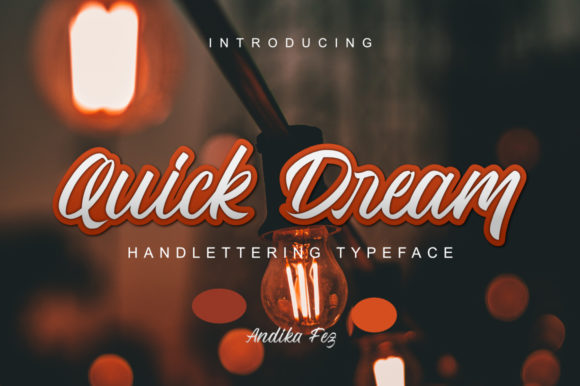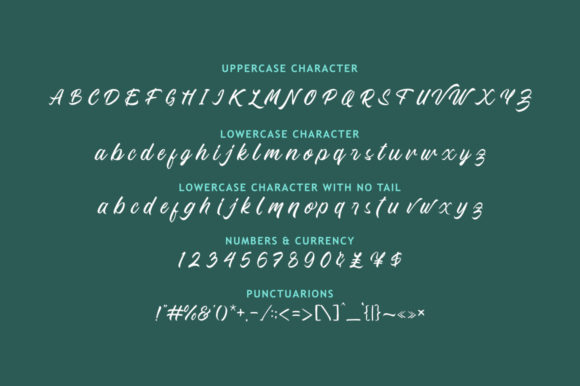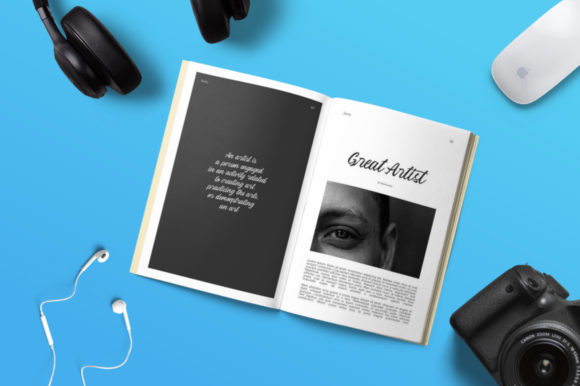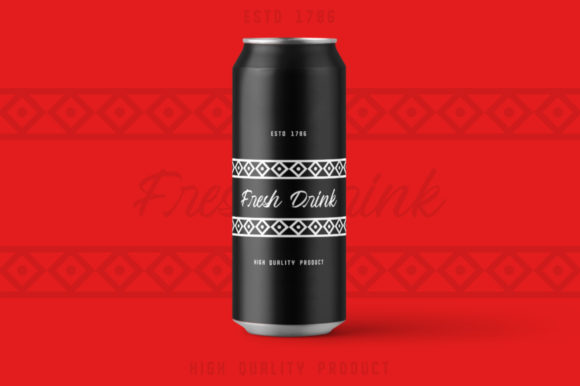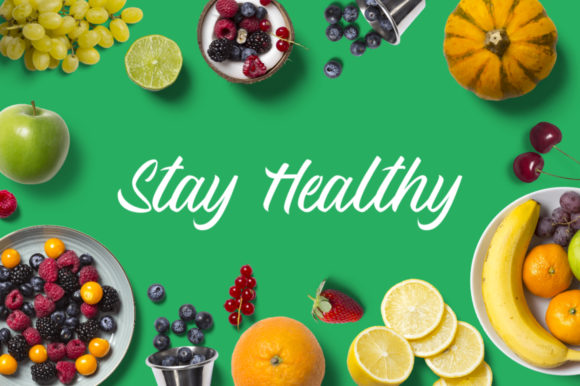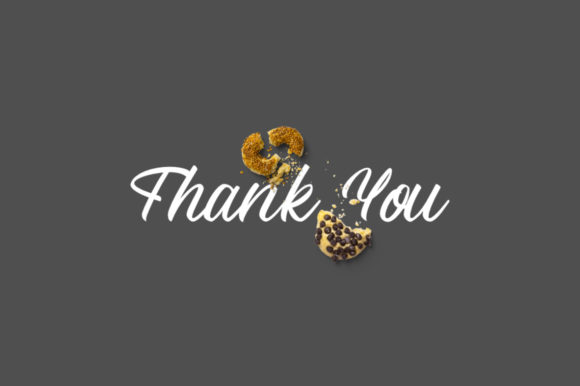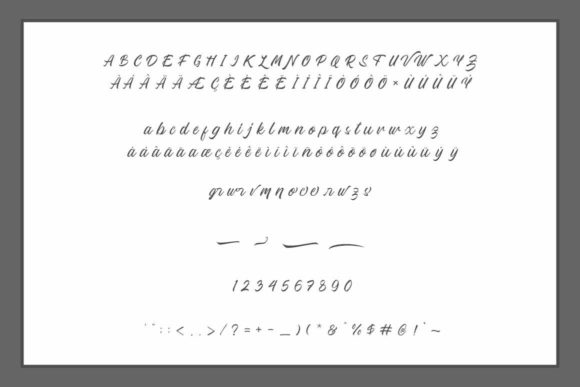
Quick Dream Font
About Quick Dream Font
The Quick Dream is a hand lettering typeface that was carefully crafted. It has a friendly feel which makes it perfect for adding a happy touch to your designs.